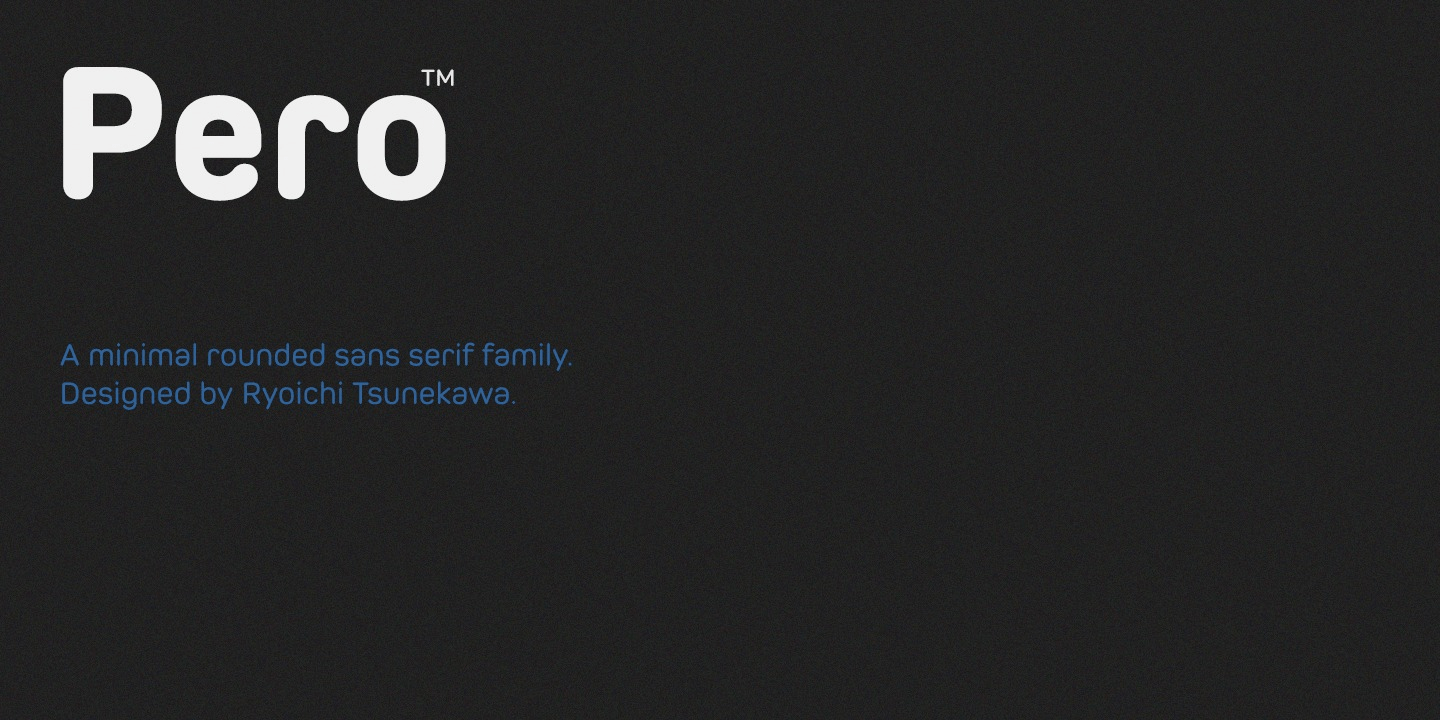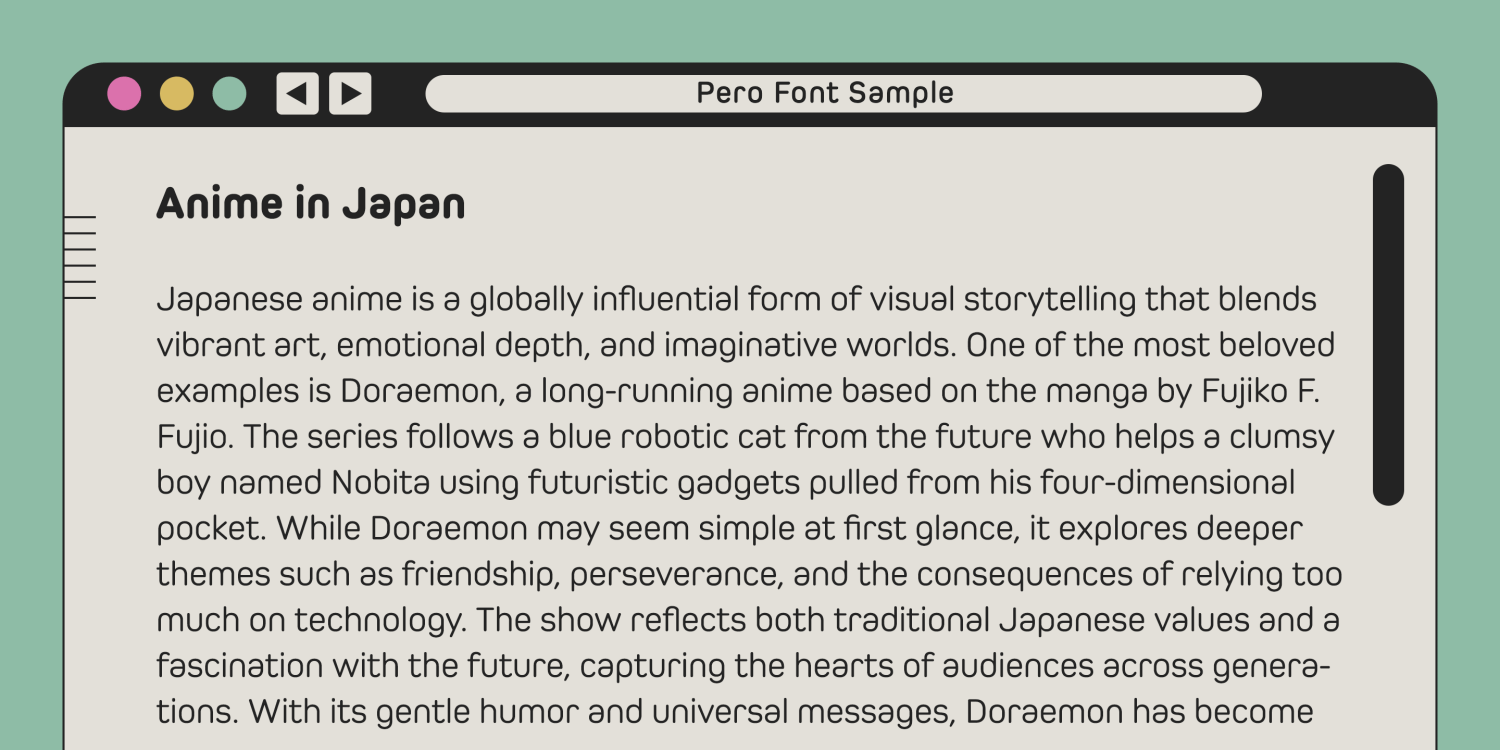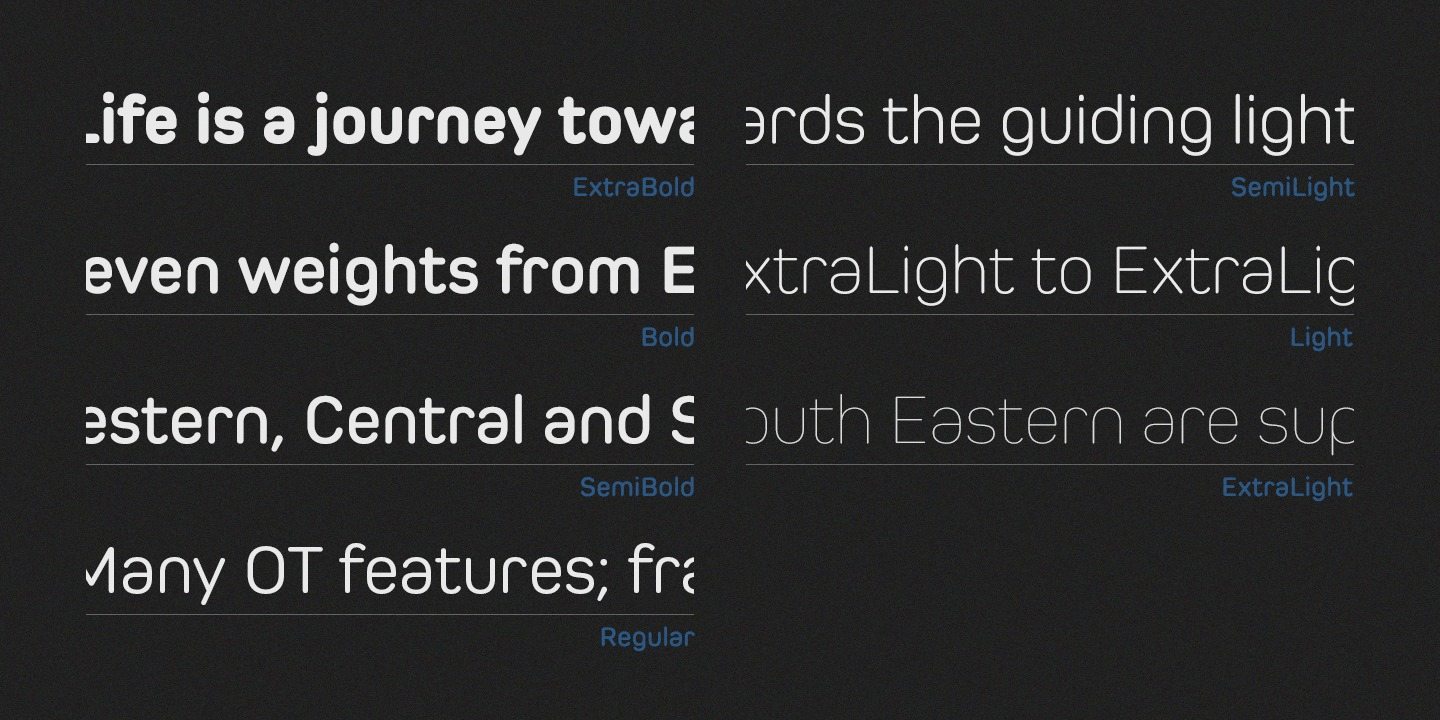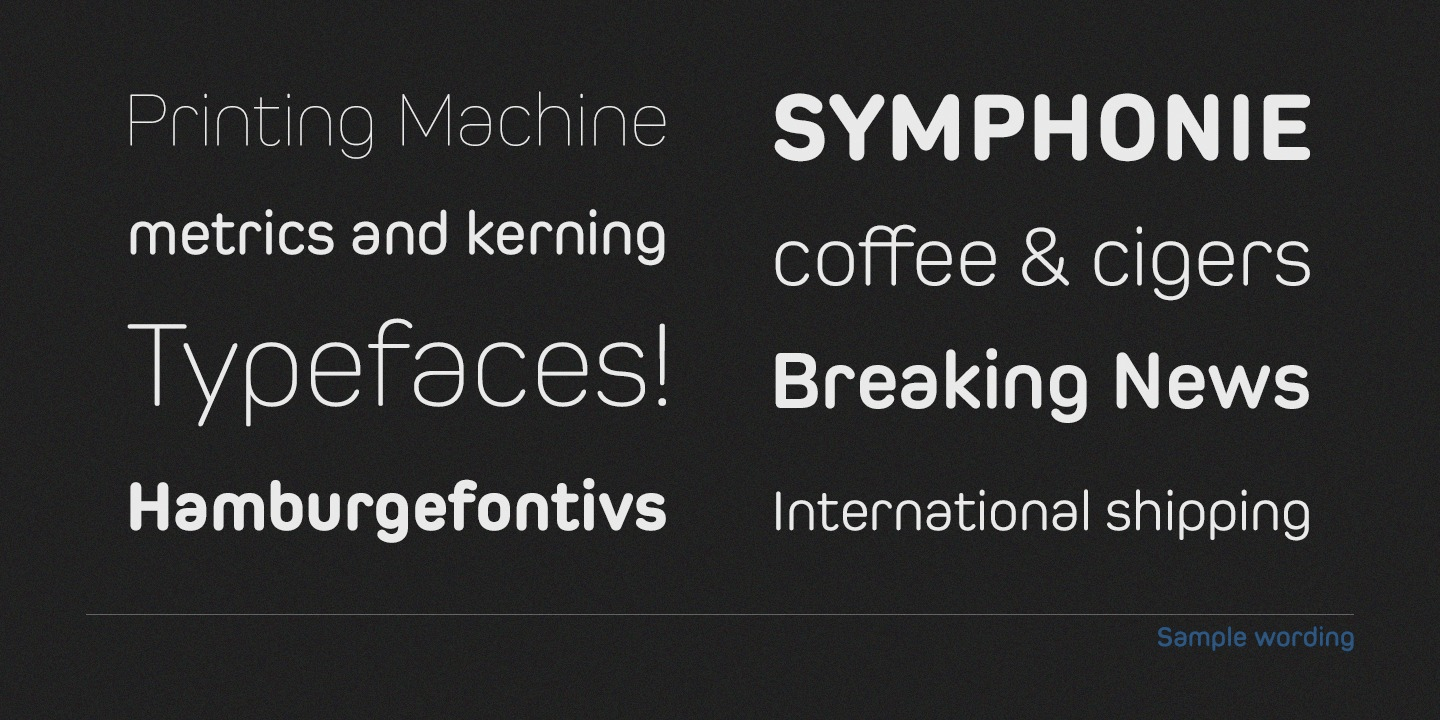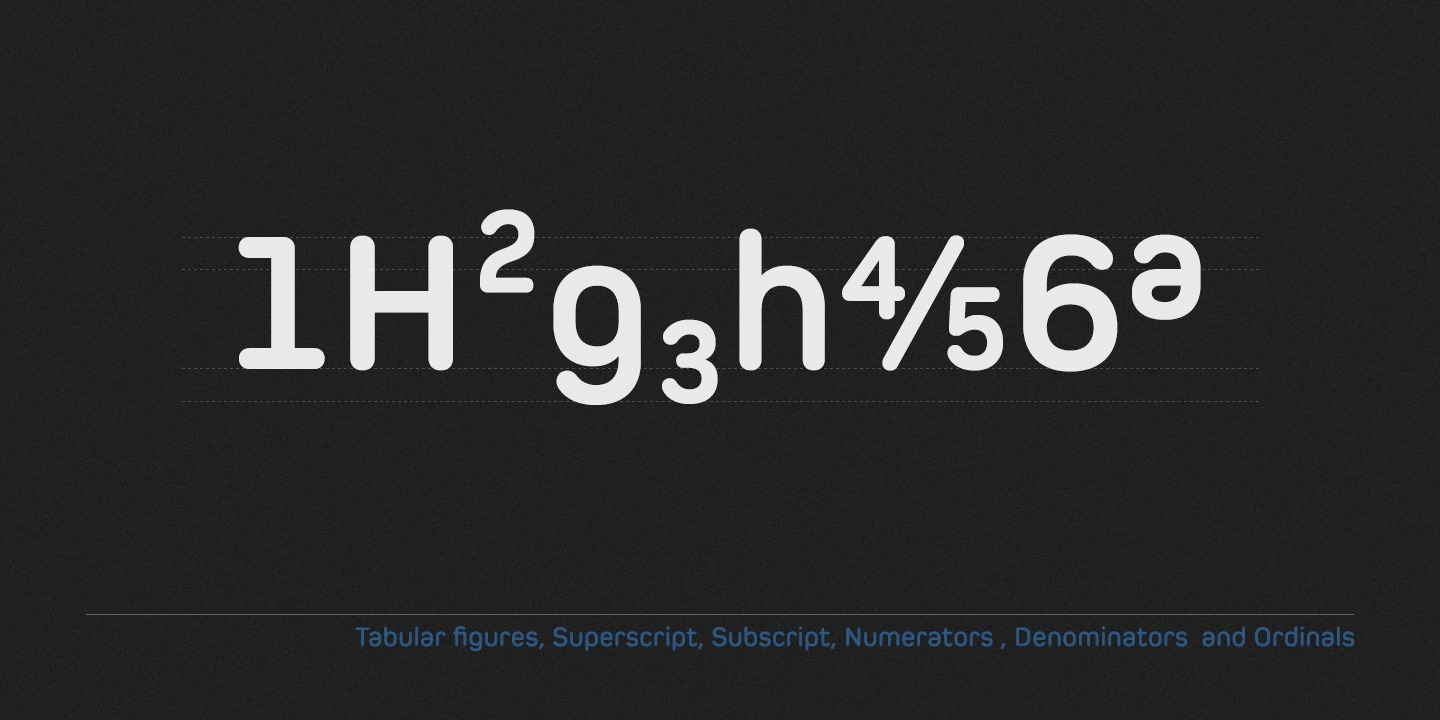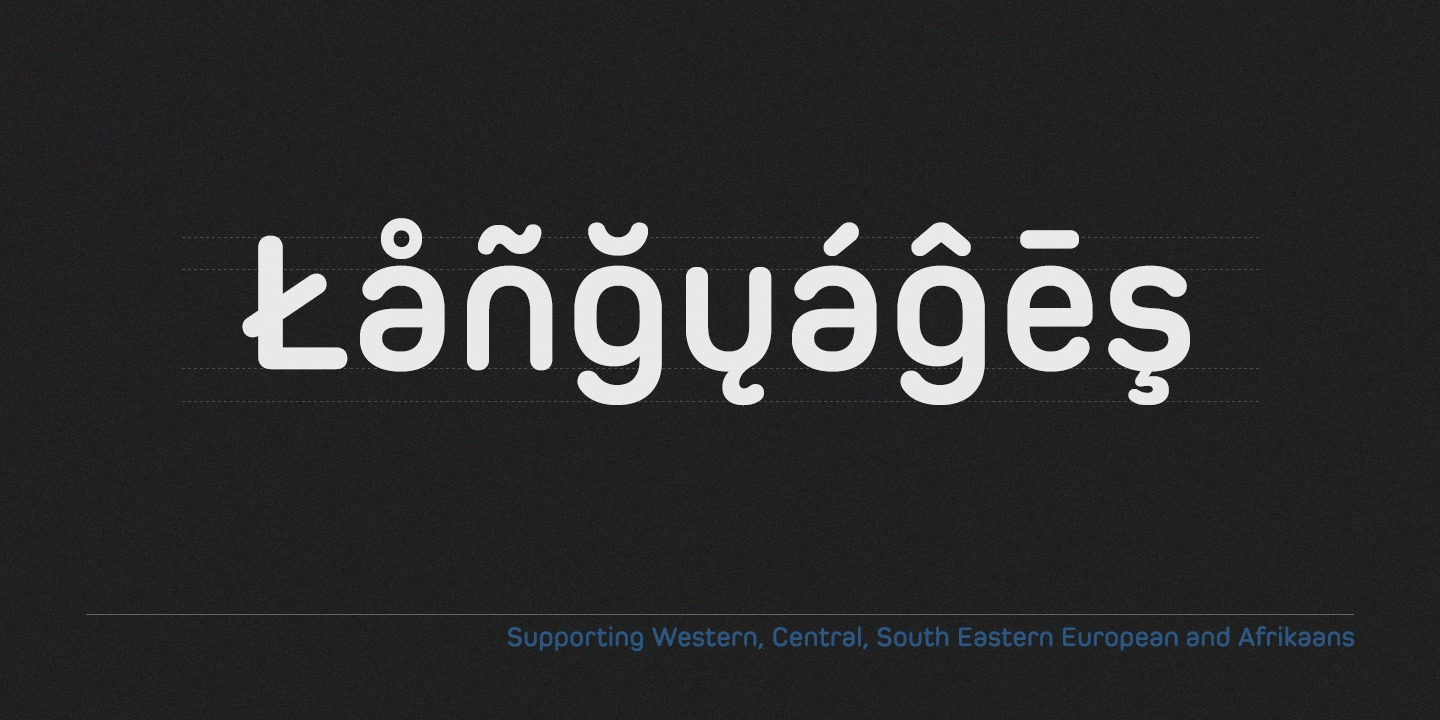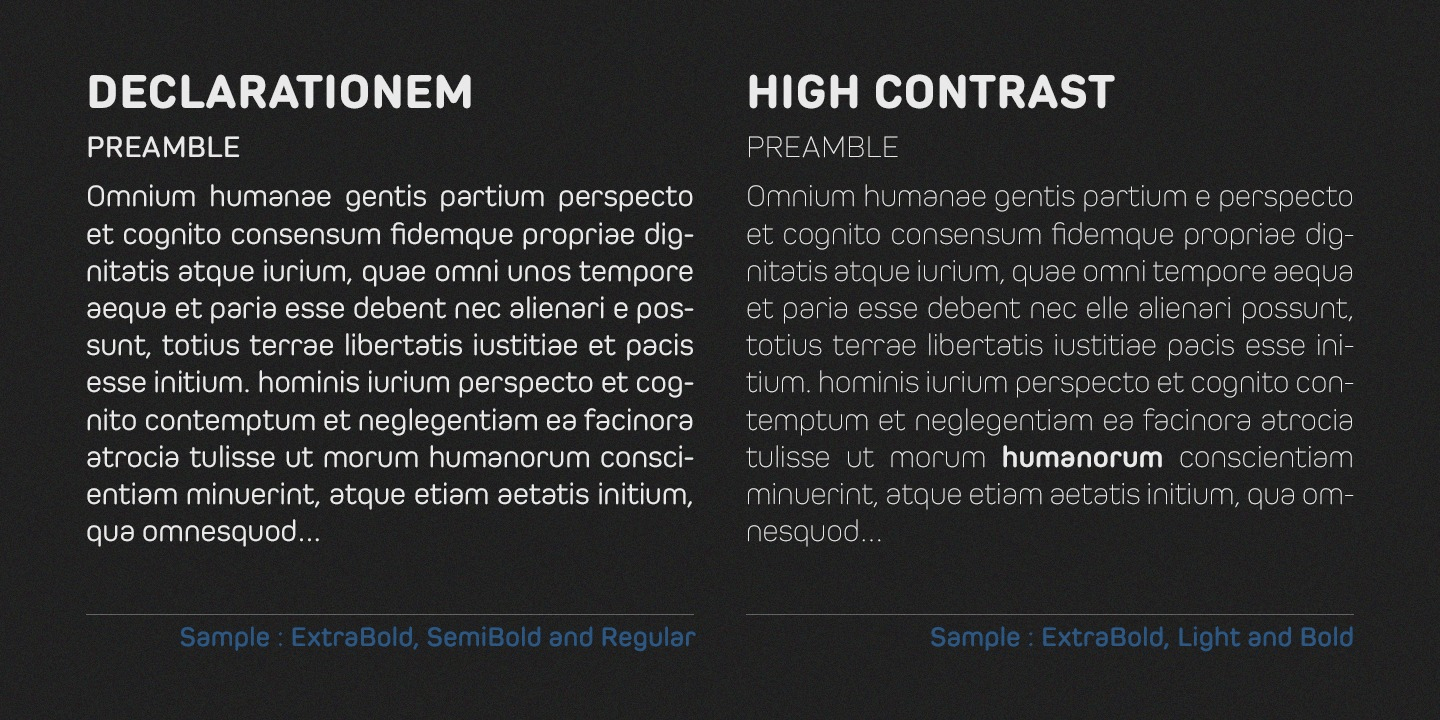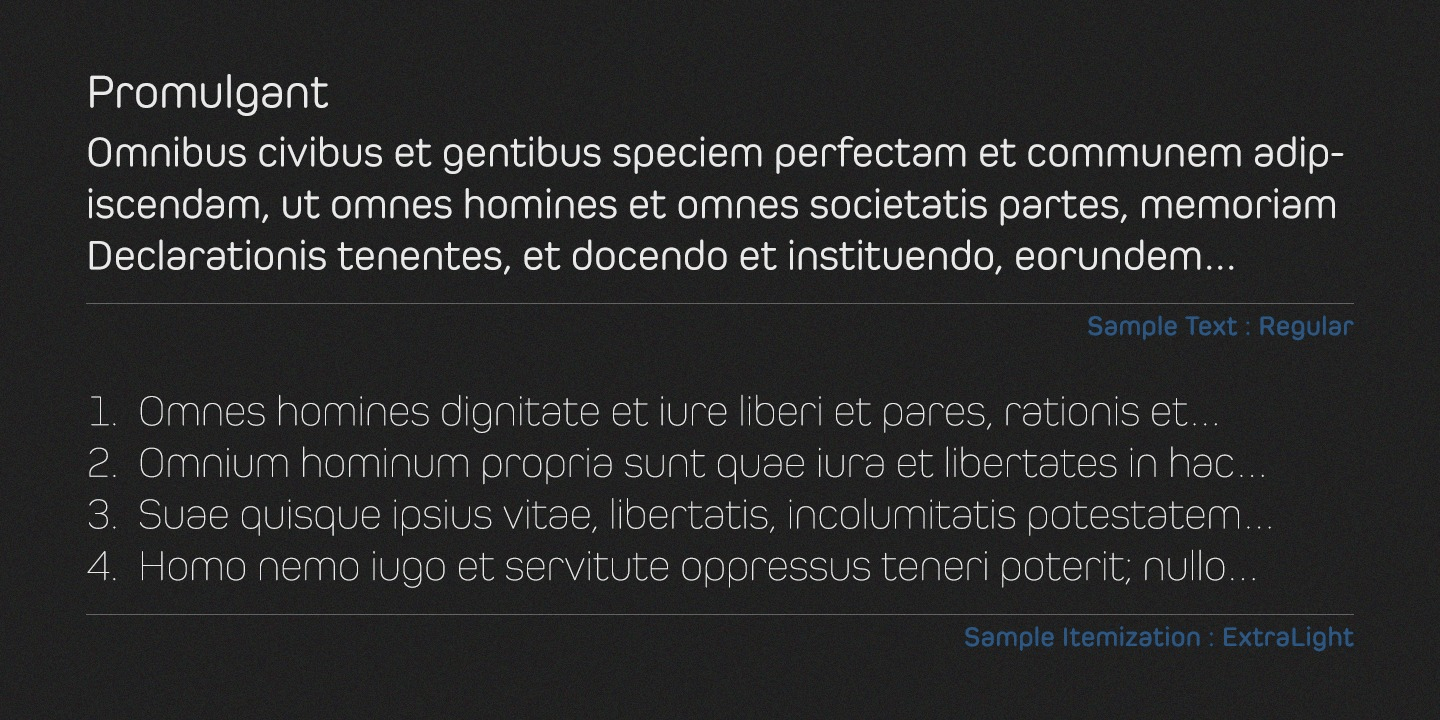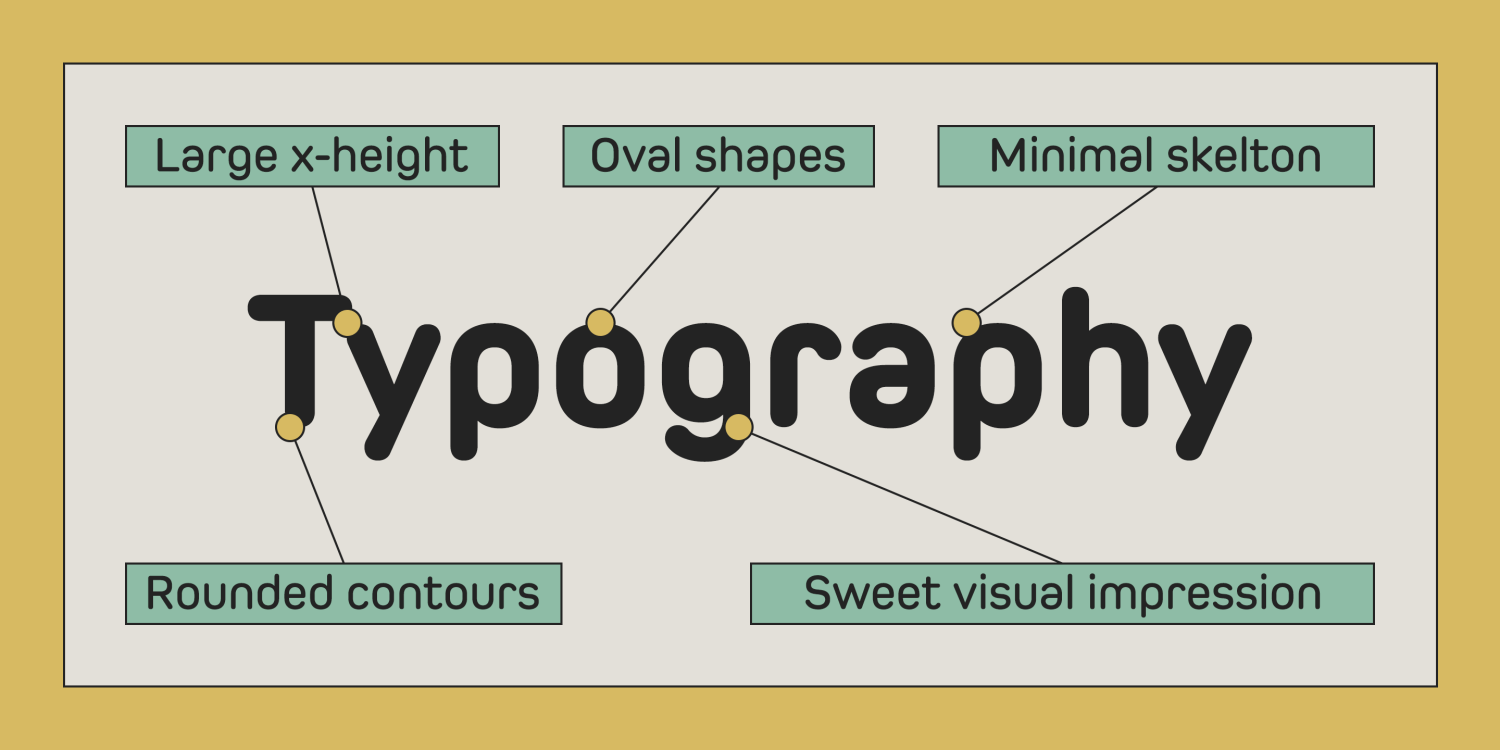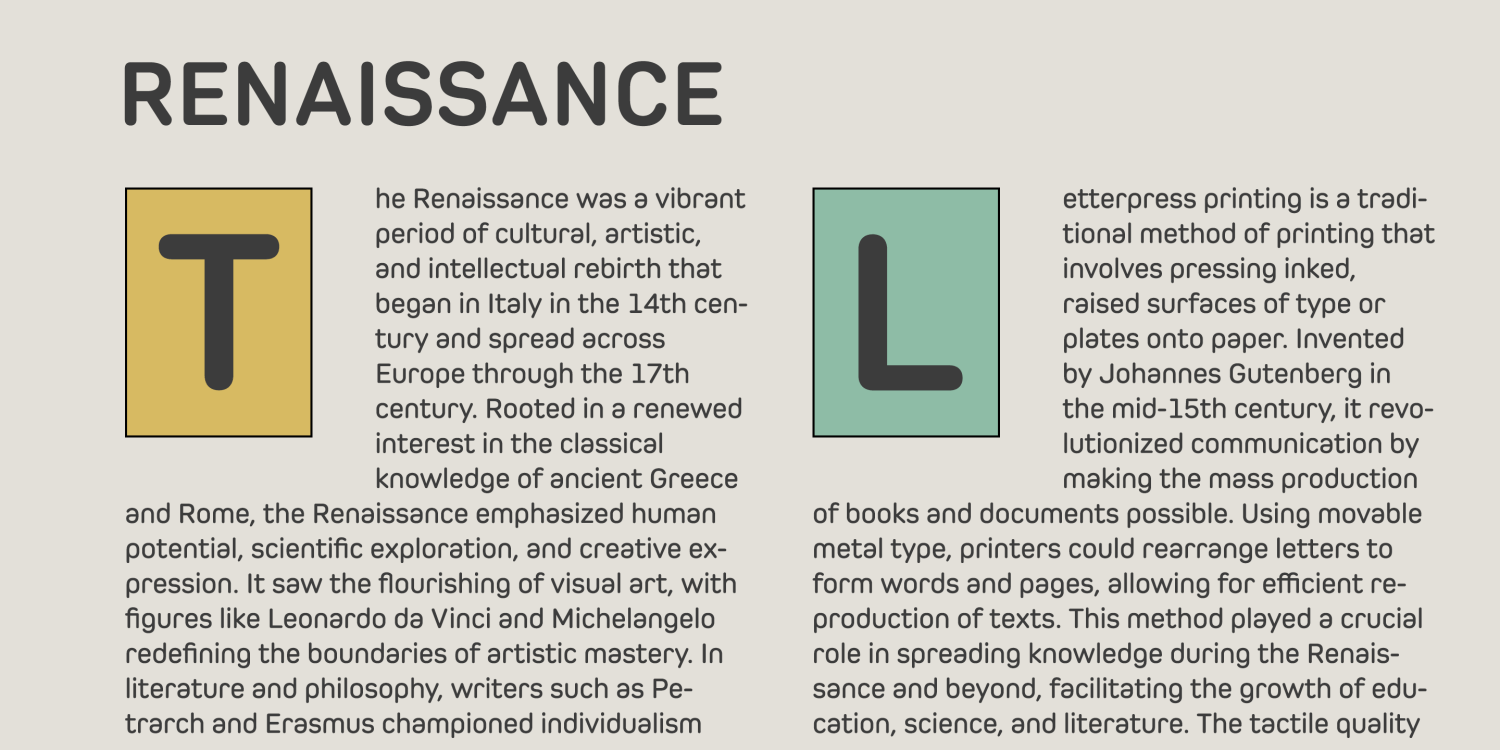
Pero
Pero is a condensed rounded sans-serif type family designed by Ryoichi Tsunekawa, featuring 7 weights from ExtraLight to ExtraBold.
The broad range of styles offers versatility for titles, headlines, and body text, while the large x-height enhances legibility across all sizes.
The letterforms are built on a modular skeleton, then minimalized by removing unnecessary stems, and finished with rounded terminals.
This combination of minimal modularity and soft curves gives Pero a distinctly contemporary, urban feel, while maintaining a warm and approachable tone. The subtle rounded styling also adds a moderate visual accent, making it perfect for modern branding and editorial use.
Pero supports a wide range of languages including Western, Central, and South Eastern European languages, as well as Afrikaans.
It also features superior and inferior figures, denominators, numerators, and fractions, accessible via OpenType features.